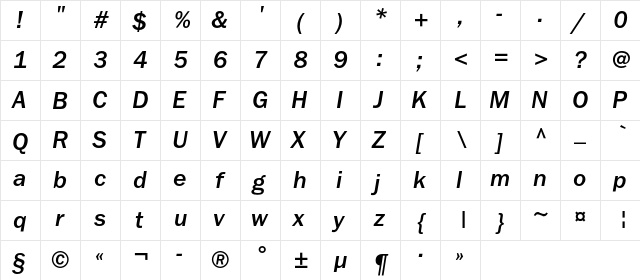
FranklinGothicMediumC Italic Font Preview
FranklinGothicMediumC Italic
Design Context for FranklinGothicMediumC Typeface
FranklinGothicMediumC takes a clean, functional approach — its unadorned letterforms prioritise legibility and work reliably across screen and print environments. The slanted form adds forward momentum and visual energy.